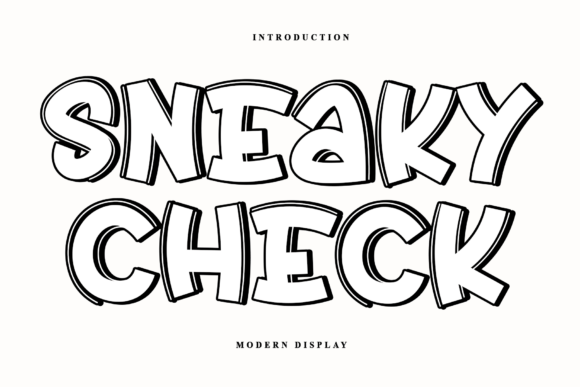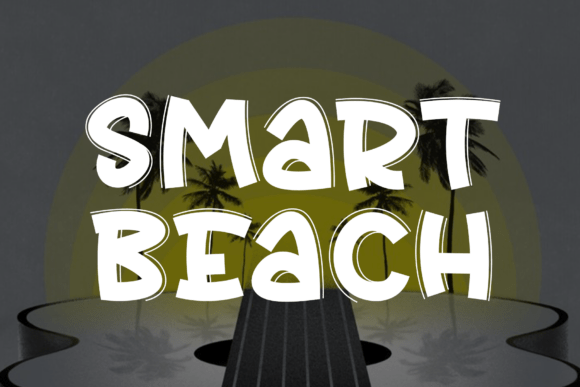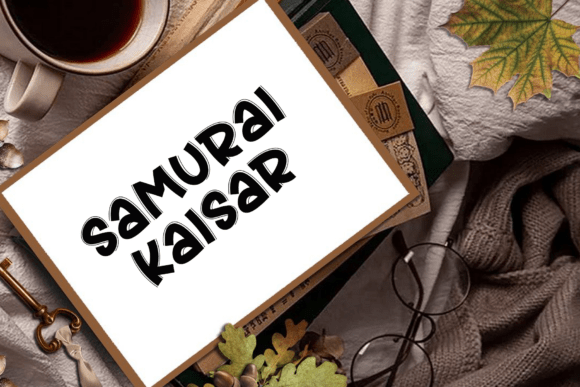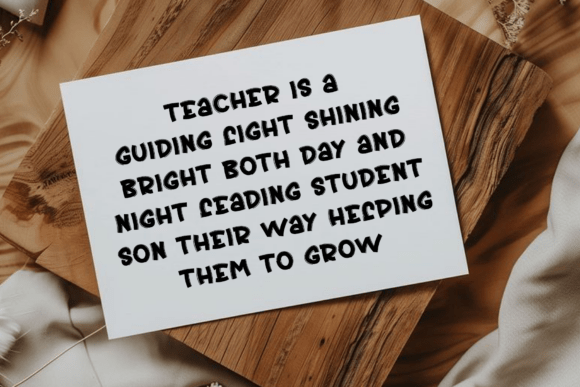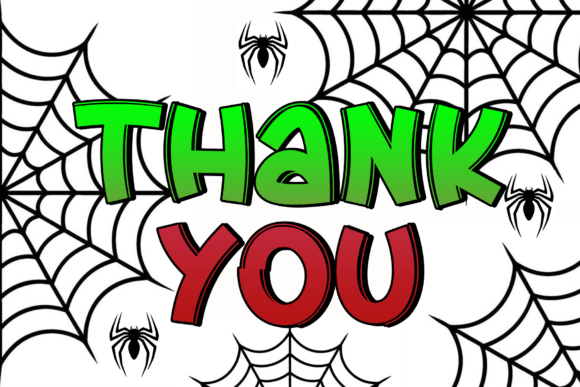
Introduction to Sneaky Check Font
Sneaky Check is a lovely and timeless display font.
It is the best choice for creating eye-catching logos, branding, and quotes Every letter has a unique and beautiful touch, which will make your design come alive.
Key Features of Sneaky Check Font
Why Choose Sneaky Check Font?
Sneaky Check Font offers exceptional quality and versatility, making it a valuable addition to your design toolkit. Whether you’re creating for personal projects or commercial use, Sneaky Check Font delivers professional results.